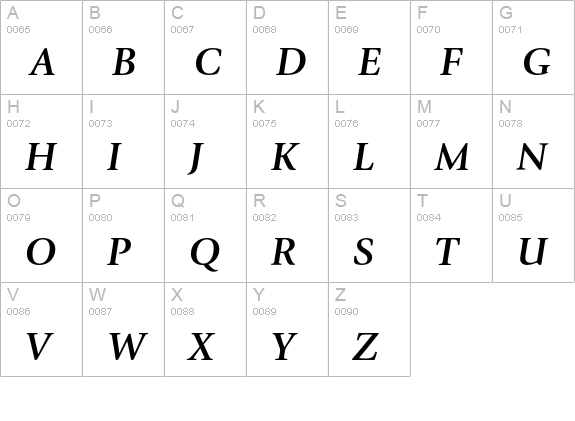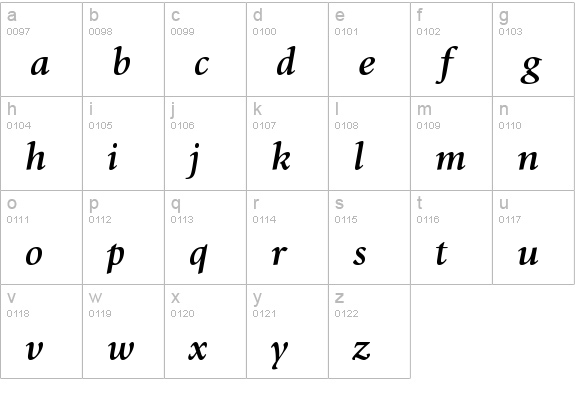
GiovanniEF-BoldItalic Font Details
The GiovanniEF-BoldItalic font exudes a bold and dynamic presence, making it the perfect choice for adding emphasis and style to your design projects. With its striking slanted letterforms and strong weight, this font commands attention and conveys a sense of sophistication. What makes GiovanniEF-BoldItalic even more appealing is that it is available for free download at FontsMarket.com. This means you can easily access this high-quality typeface without any cost, making it a valuable addition to your font library. Whether you're working on branding materials, editorial design, or any creative endeavor, GiovanniEF-BoldItalic offers a versatile and eye-catching option that will elevate your work to the next level.